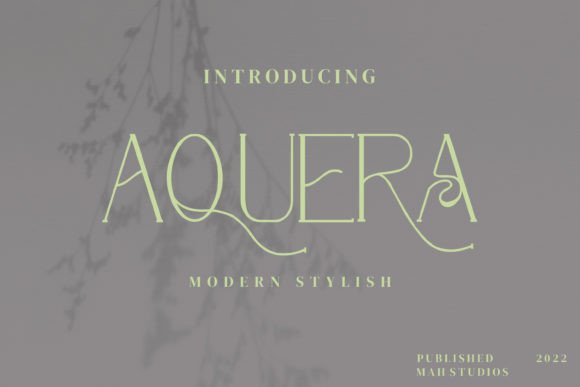
Venture into a realm of timeless elegance with Aquera, the captivating serif font that adds a touch of sophistication to your digital creations. Immerse yourself in the beauty of meticulously crafted letterforms, designed to evoke a sense of nostalgia and charm. Let Aquera be your creative compass, guiding you towards captivating logos, alluring branding, and enchanting invitations that leave a lasting impression.
Carved with precision and imbued with a timeless allure, Aquera's serifs dance gracefully across the page, whispering tales of forgotten eras. Its refined curves and delicate details evoke a sense of longing and romance, making it the perfect choice for projects that seek to capture the essence of the past.
With Aquera, your designs will transcend the ordinary and embark on a journey through time. Its versatility knows no bounds, effortlessly blending with vintage aesthetics while seamlessly adapting to contemporary styles. Unleash your imagination and explore the endless possibilities, from retro logos that exude a sense of nostalgia to modern branding that embraces a touch of classic elegance.
Experience the limitless potential of Aquera, a font that breathes life into your creative endeavors. Its PUA encoding grants you effortless access to a treasure trove of glyphs and ligatures, empowering you to unleash your creativity and craft designs that captivate and inspire.
Embrace the allure of Aquera and unlock the gateway to a world of timeless beauty and endless possibilities. Let your imagination soar as you craft designs that resonate with the past while embracing the present. Aquera awaits, ready to transform your creative vision into a symphony of elegance and charm.